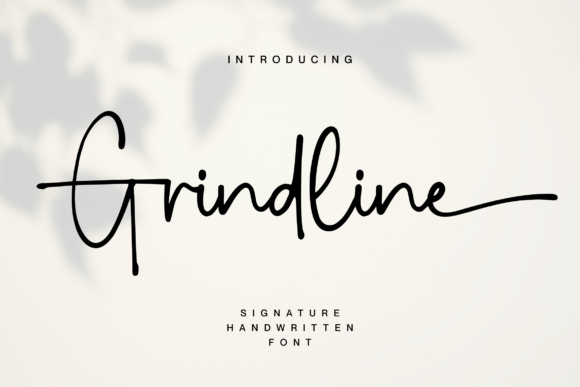
Journey into the world of Grindline, a captivating script font that will ignite your creativity and leave you spellbound. Its playful characters dance along the baseline, adding a touch of whimsy and charm to your designs. Unleash your imagination and watch as your ideas come alive with Grindline's enchanting presence.
With Grindline, your designs will transcend the ordinary, captivating your audience with its unique charm. Craft stunning logos, eye-catching social media posts, irresistible branding materials, and heartfelt invitations that leave a lasting impression. The possibilities are endless, and the results are nothing short of extraordinary.
Grindline is more than just a font; it's an artistic expression that breathes life into your creations. Its PUA encoding allows you to effortlessly access an array of glyphs and swashes, empowering you to add intricate details and flourishes that elevate your designs to new heights.
Embark on a creative odyssey with Grindline, a font that will transform your designs into captivating masterpieces. Let your imagination soar and witness the magic unfold as Grindline weaves its enchanting spell on your projects. Experience the joy of creating with a font that truly inspires and captivates.